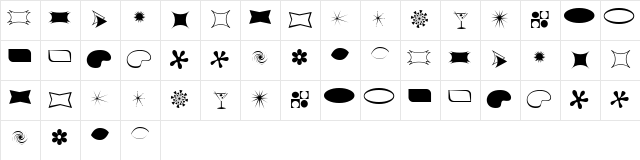
60s Chic Regular Free Font
60s Chic Regular
Design Context for 60s Chic
60s Chic is a composed and adaptable typeface that performs quietly and consistently across a wide range of design contexts.